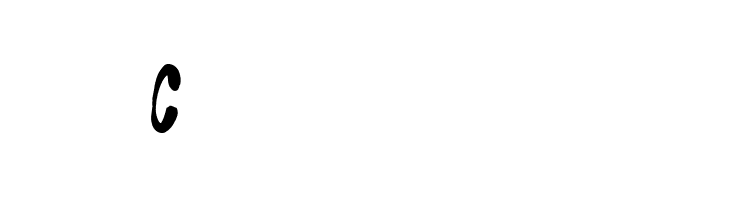
A bold, graffiti-style font with a distinctive dripping effect.
A decorative and edgy font with thorn-like, intricate details.
A bold, geometric font with a futuristic and industrial design.
A bold, dripping font ideal for horror and Halloween themes.
A bold, dripping font with a horror-themed aesthetic.
A gothic, medieval-inspired font with sharp, angular lines and unique letterforms.
A bold, italic font with gothic influences and sharp, angular serifs.
A bold, angular font with an oblique style, perfect for impactful designs.
Bold, dripping decorative font ideal for horror themes.
A bold, brushstroke-style font with an edgy, rebellious aesthetic.
A bold, brush-stroke font with an aggressive, hand-drawn aesthetic.
A bold, angular font with a jagged, distressed style.
Bold, angular display font with a graffiti and sci-fi vibe.
A bold, jagged font with a dripping effect, perfect for dramatic and intense designs.
A distressed, grungy font with a bold, chaotic style.
A bold, brushstroke font with a rugged, textured appearance.
A decorative set of desert-themed symbols with intricate, bold designs.
A bold, hand-drawn font with irregular strokes and a dynamic, expressive style.
A bold, playful font with a hand-drawn, artistic style.
Bold, dripping display font with a horror-inspired style.
A bold, edgy font with sharp, angular strokes and a hand-drawn appearance.
A sleek, modern font with thin, elongated letterforms and minimal contrast.
A bold, brush-style font with dynamic, hand-painted strokes.
A bold, dripping 3D font with a horror-inspired style.
A bold, 3D italic font with a dripping effect, perfect for horror-themed designs.
A bold, horror-themed font with jagged, dripping edges.
A bold, italic font with a dripping effect, ideal for horror-themed designs.
A bold, dripping font with a horror or gothic style.
A bold, italicized font with rugged, jagged edges for a dynamic look.
A bold, outlined font with a dripping, horror-themed style.
A bold, outlined, italic font with a dynamic and edgy style.
A bold, condensed font with a dripping, horror-themed style.
A bold, jagged, and condensed italic font with a horror-inspired style.